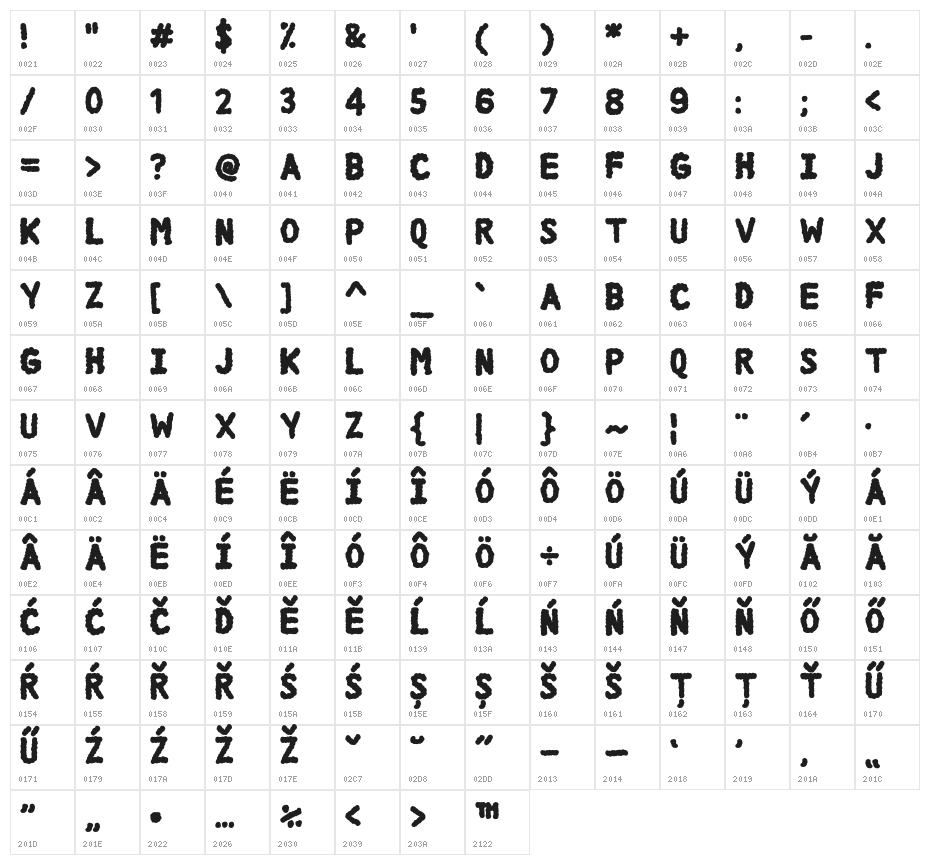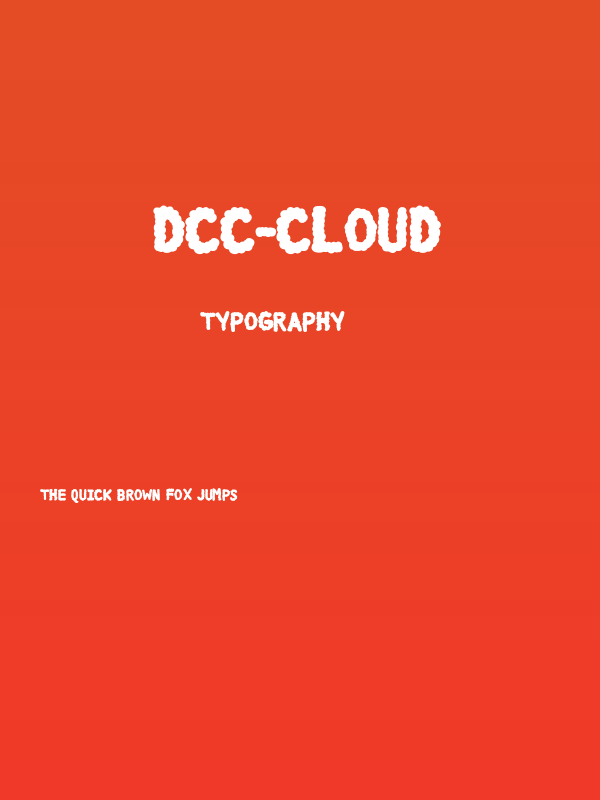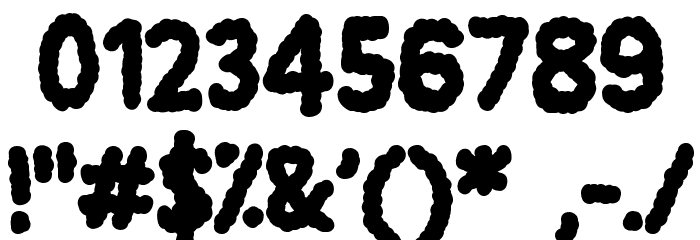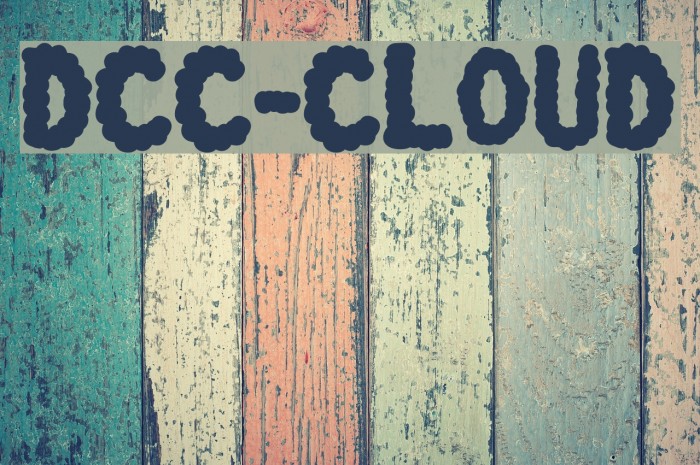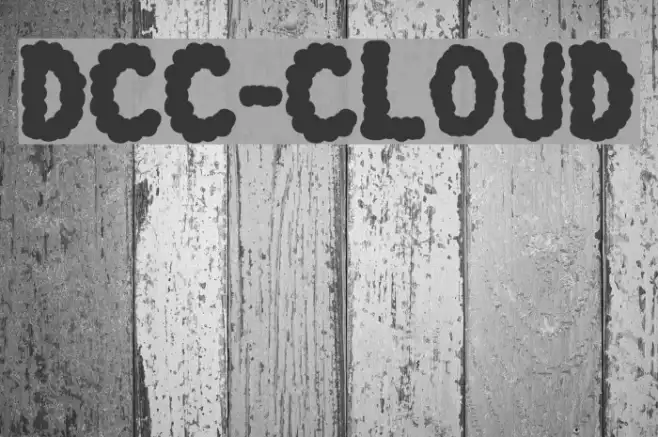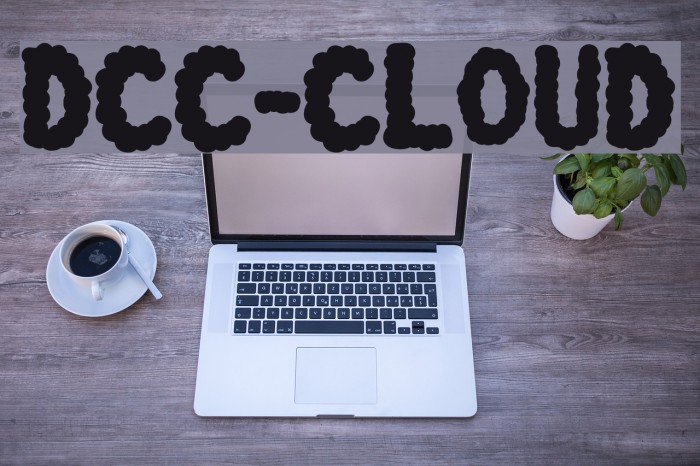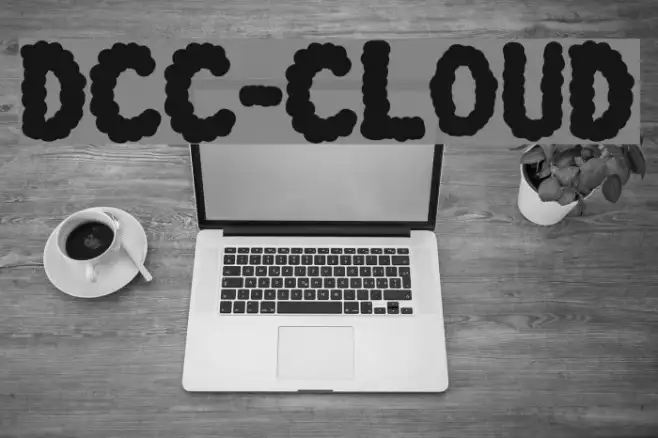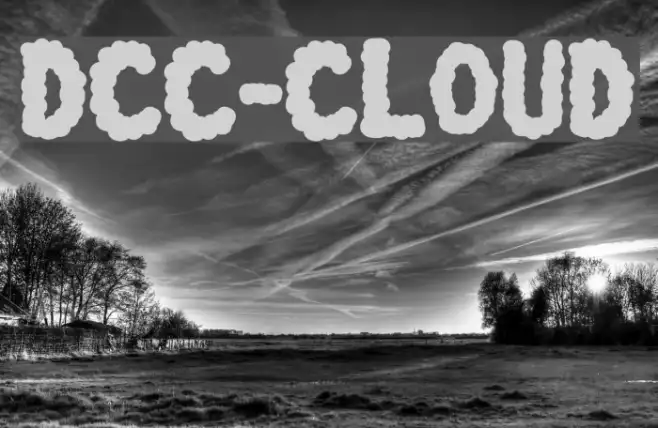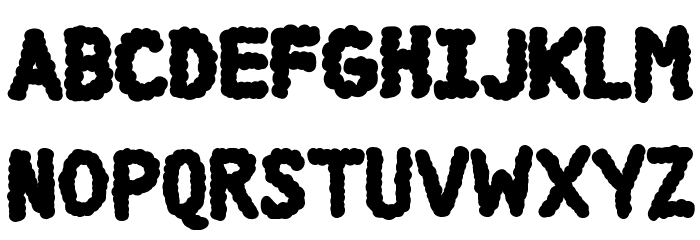
DCC-Cloud Font
DCC-Cloud Description
This playful and bold font features characters that appear as if they are formed from fluffy clouds or soft, rounded shapes. Each letter and number is crafted with a consistent thickness, giving it a cohesive and uniform look. The overall appearance is whimsical and fun, making it ideal for projects that require a lighthearted and approachable feel. The font's unique style stands out, making it suitable for eye-catching designs.